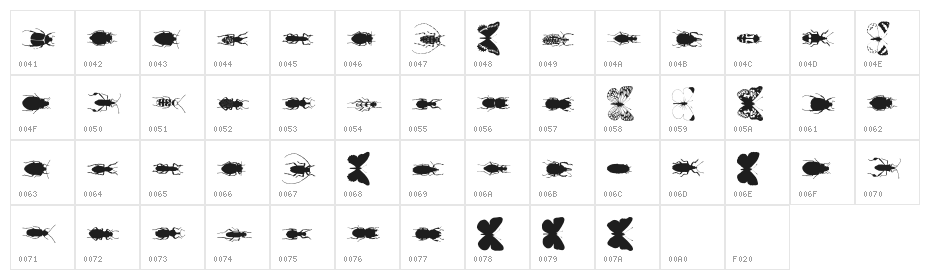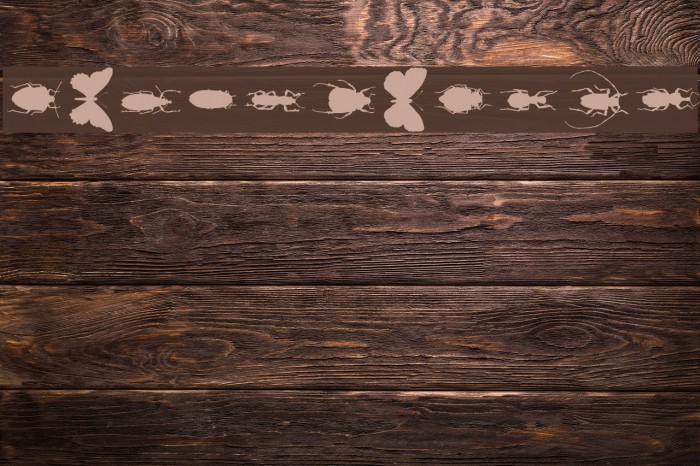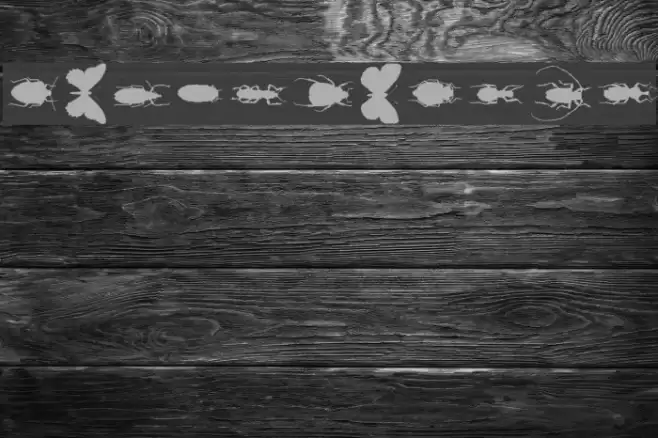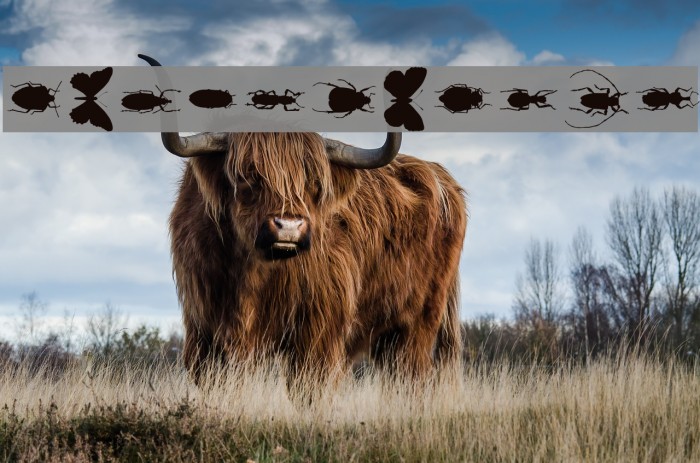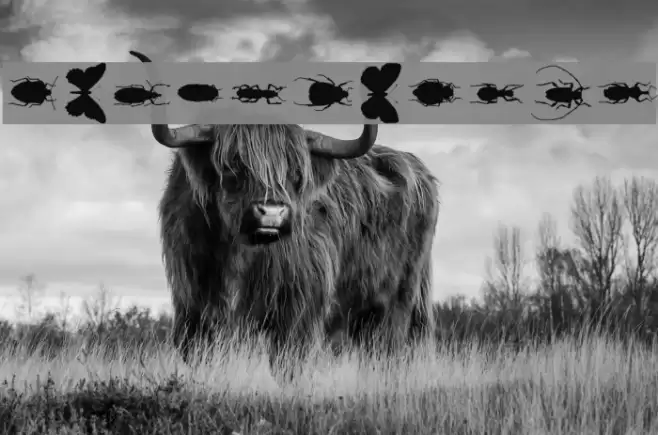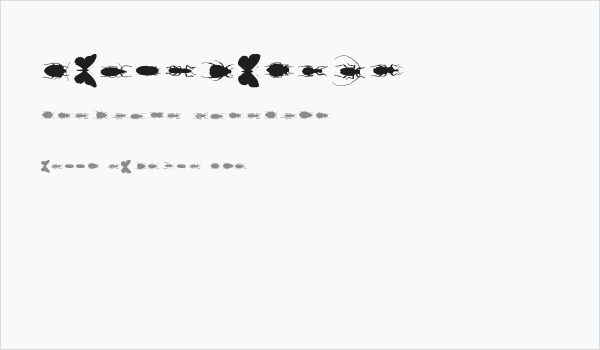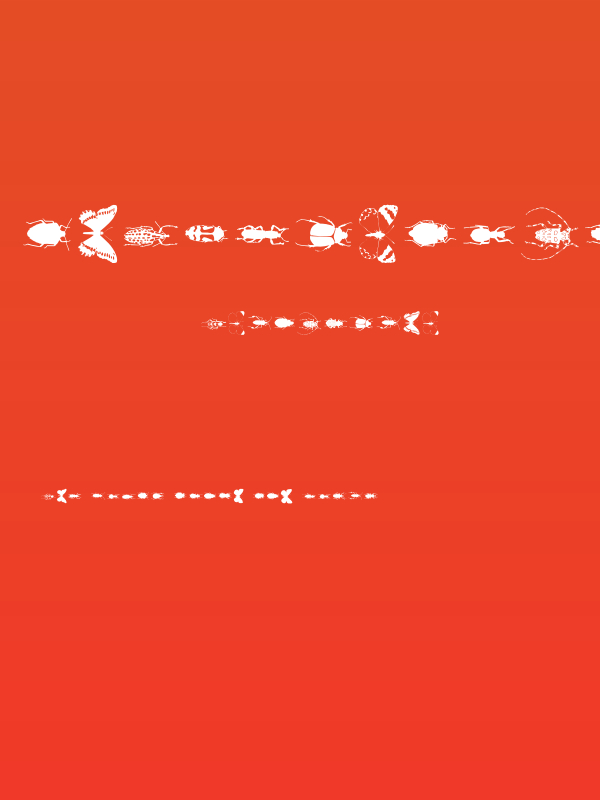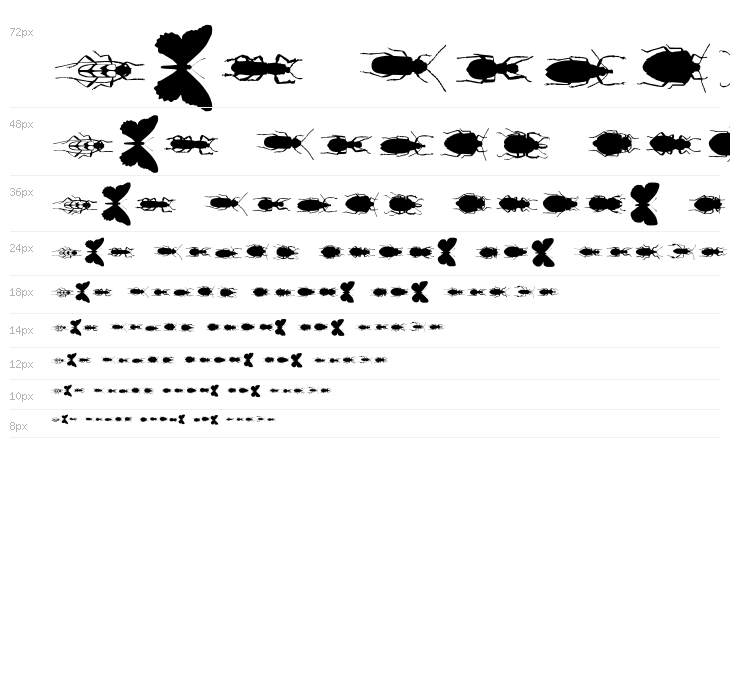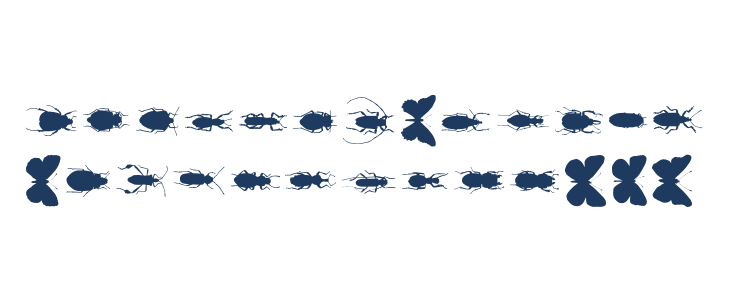
ChileanBugs Font
ChileanBugs Description
This is not a traditional font but rather a collection of insect silhouettes arranged in the format of a typeface. Each character is represented by a different bug or insect, showcasing a variety of species with distinct shapes and sizes. The design is highly decorative, focusing on the intricate details of each insect's form. This collection is more of an artistic representation rather than a functional font for text. The silhouettes are bold and striking, making them suitable for decorative purposes.
| Use Case | Logos, Decorative elements |
| Proposed Projects | Ideal for nature-themed designs, educational materials about insects, or creative projects requiring unique decorative elements. |